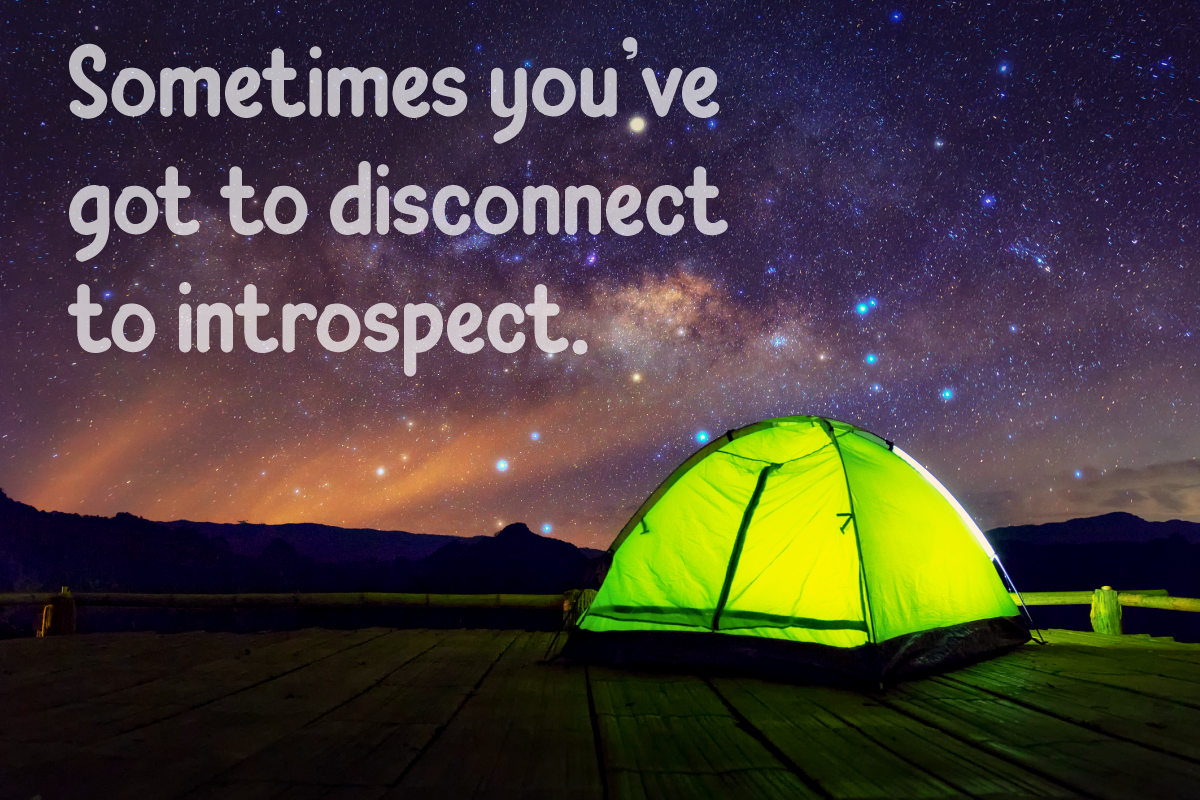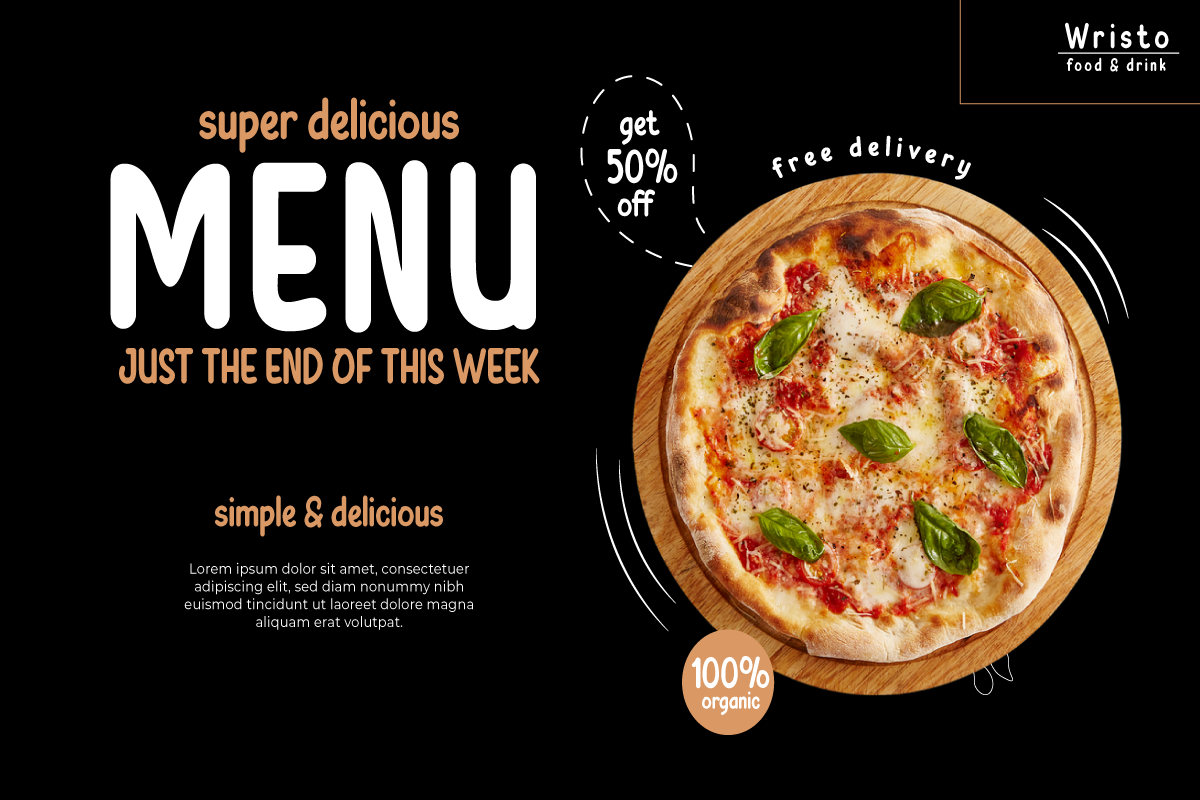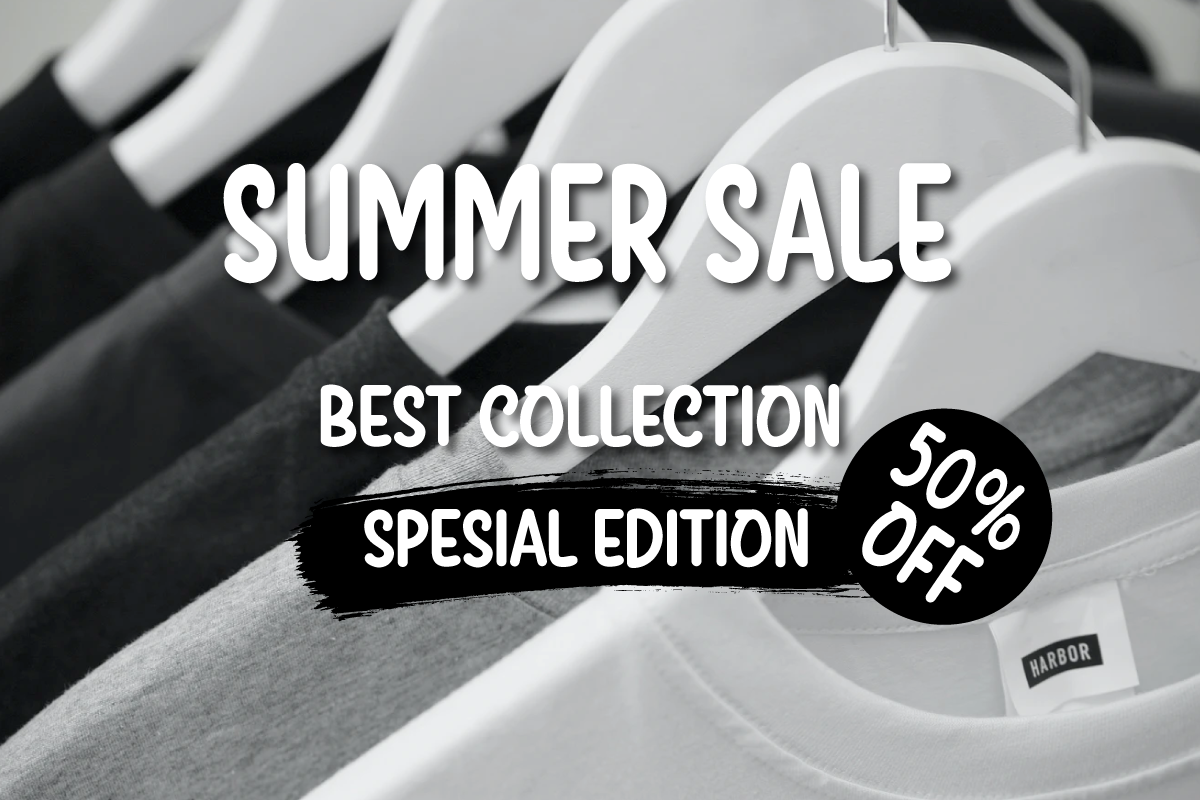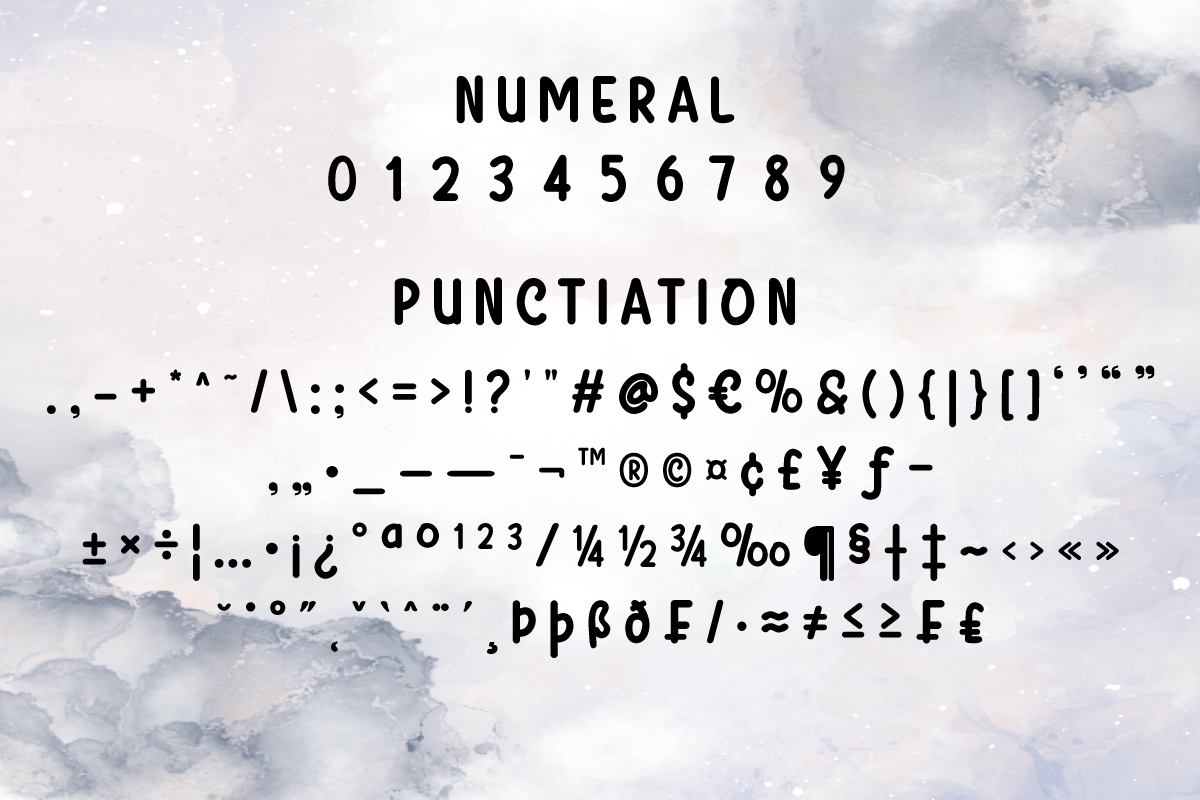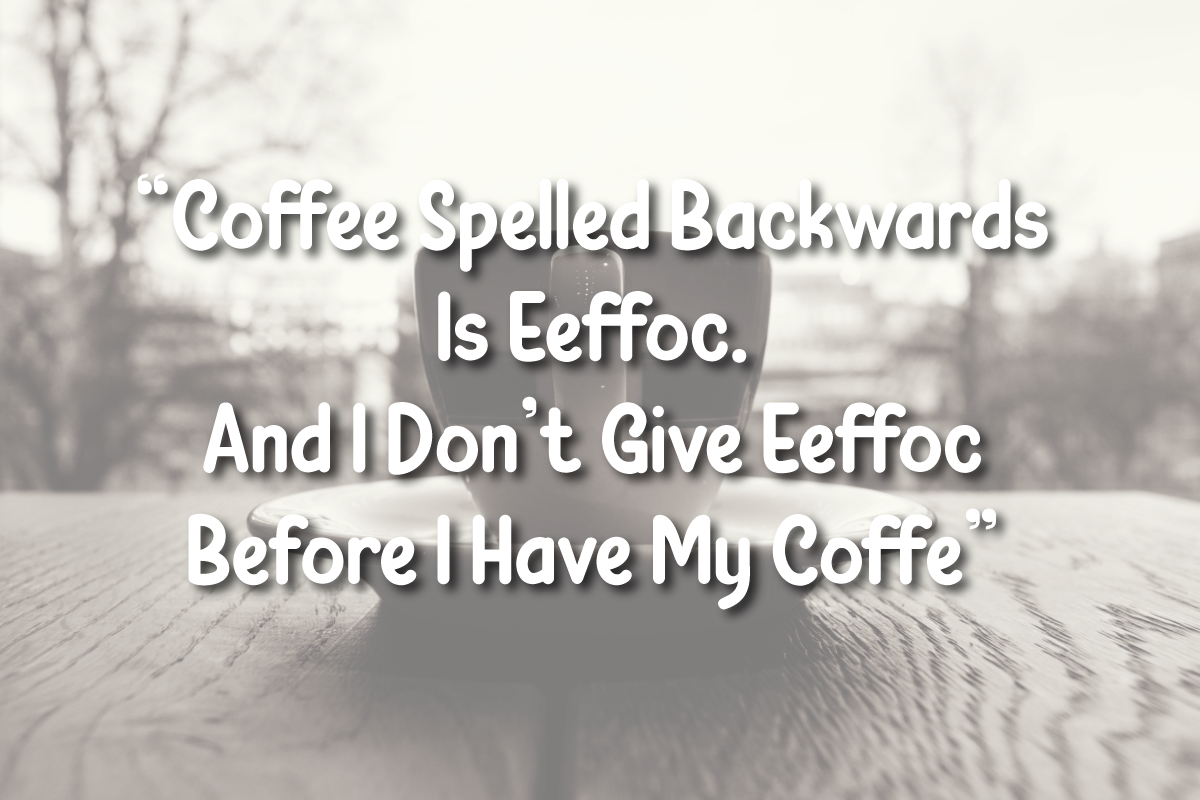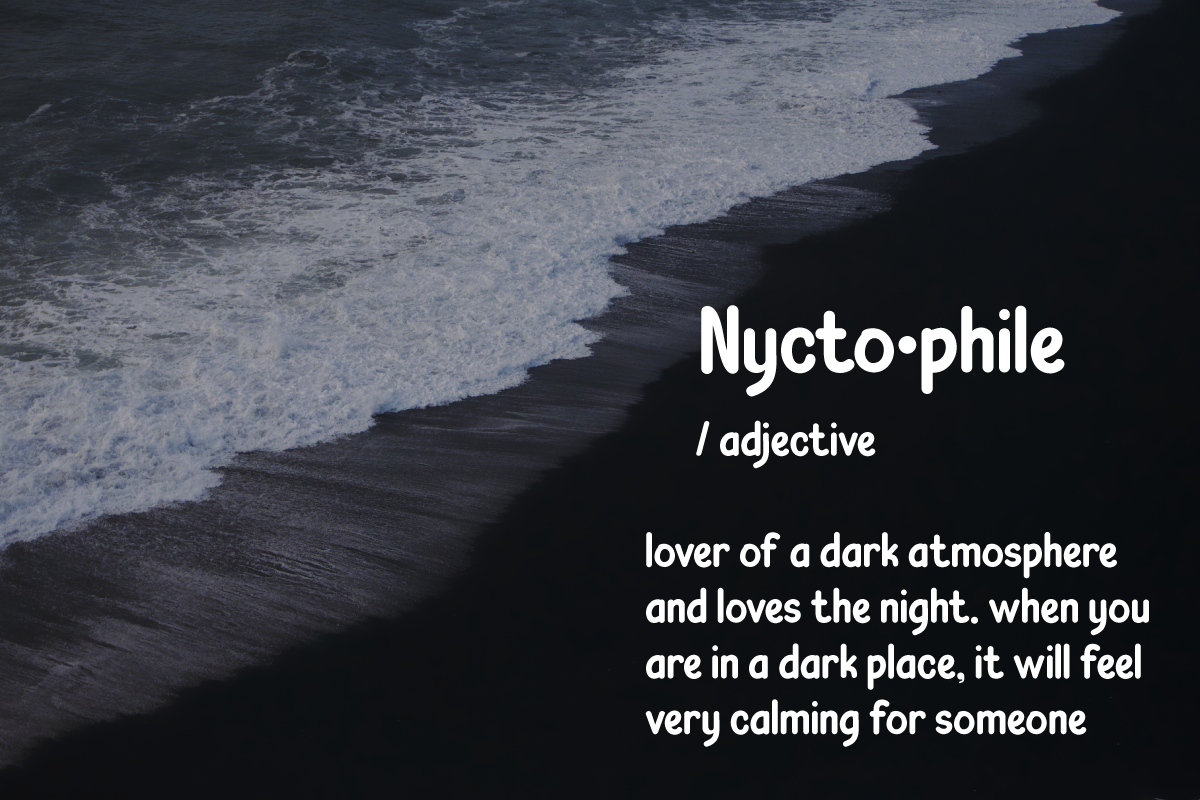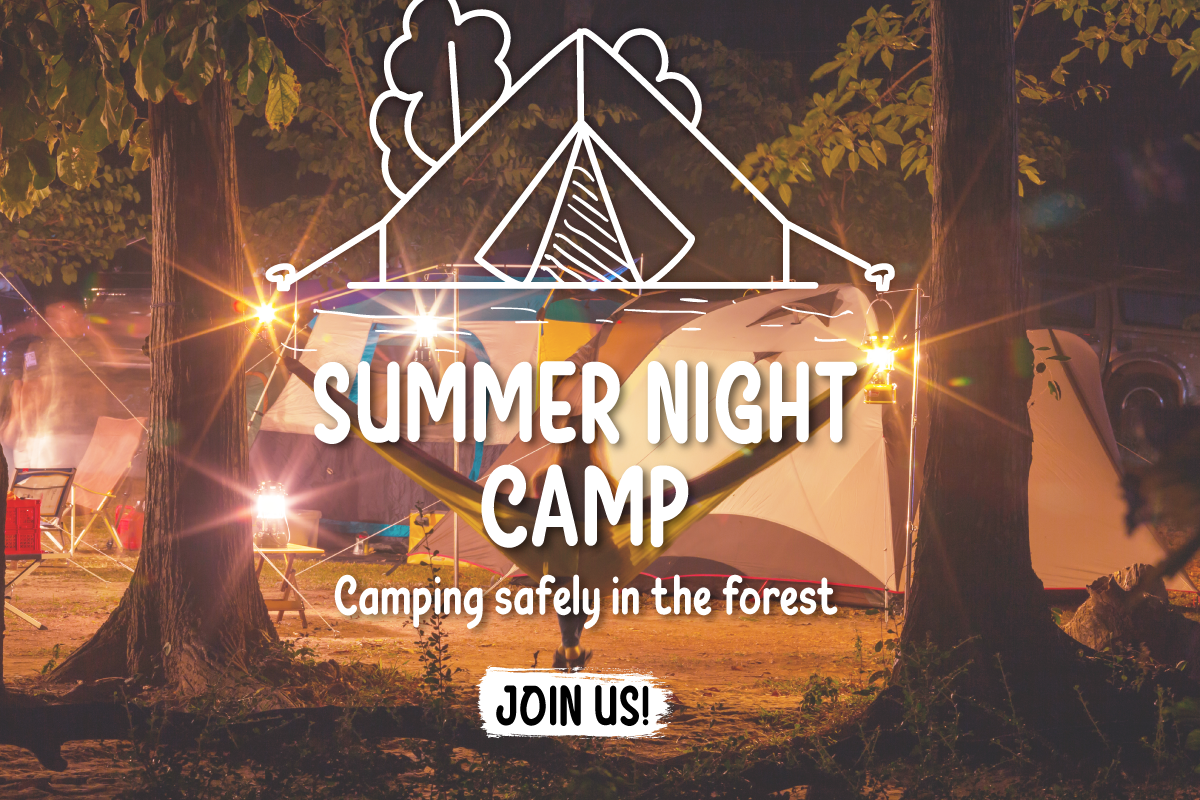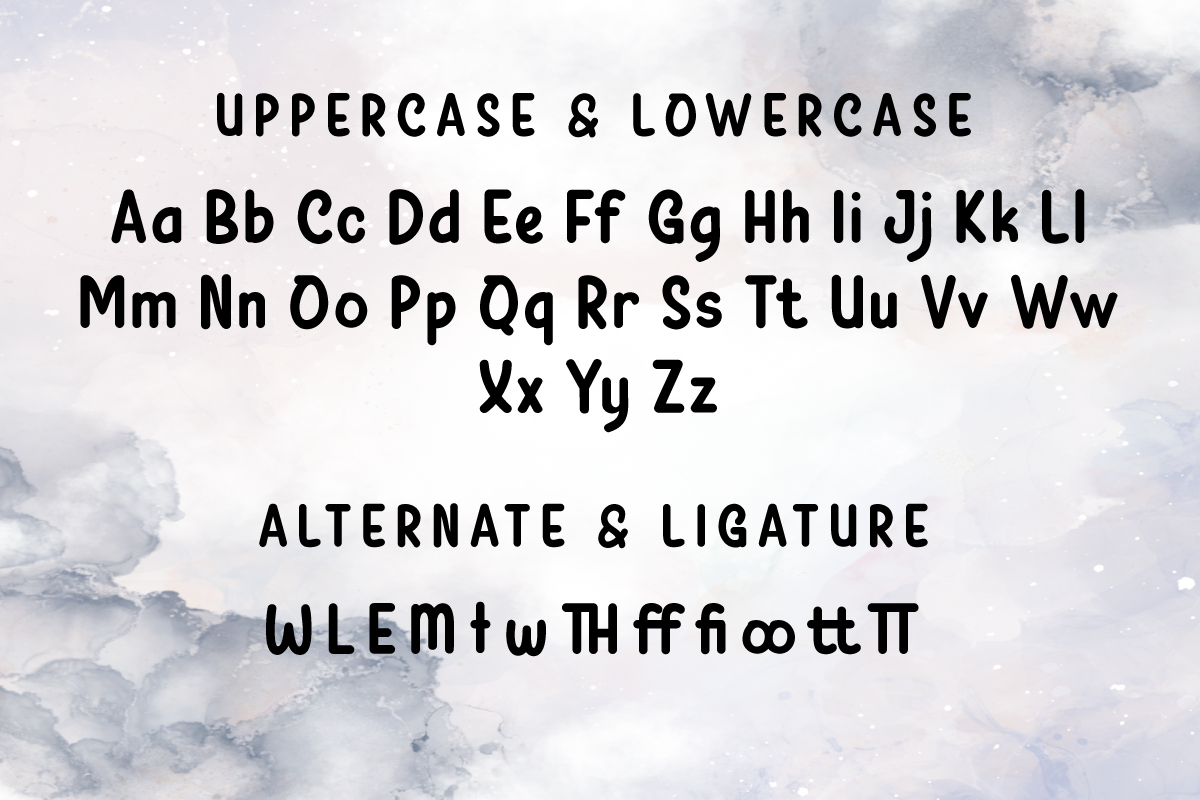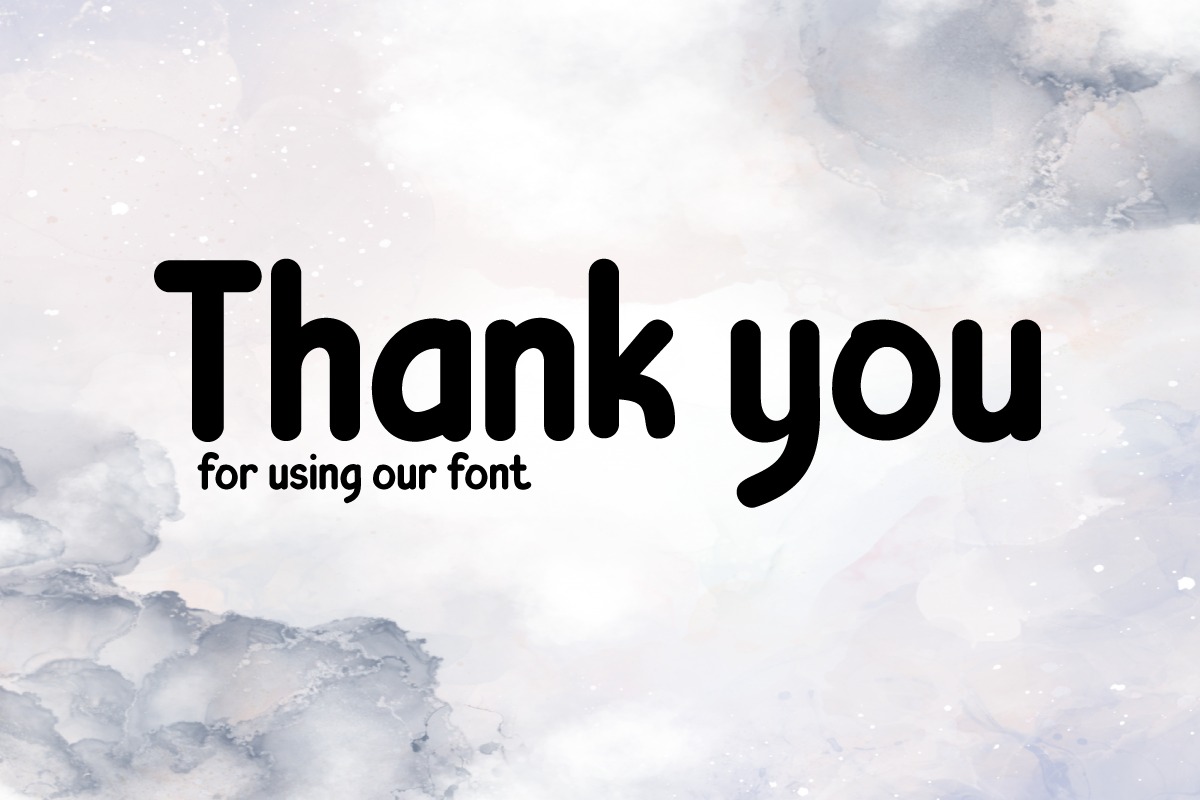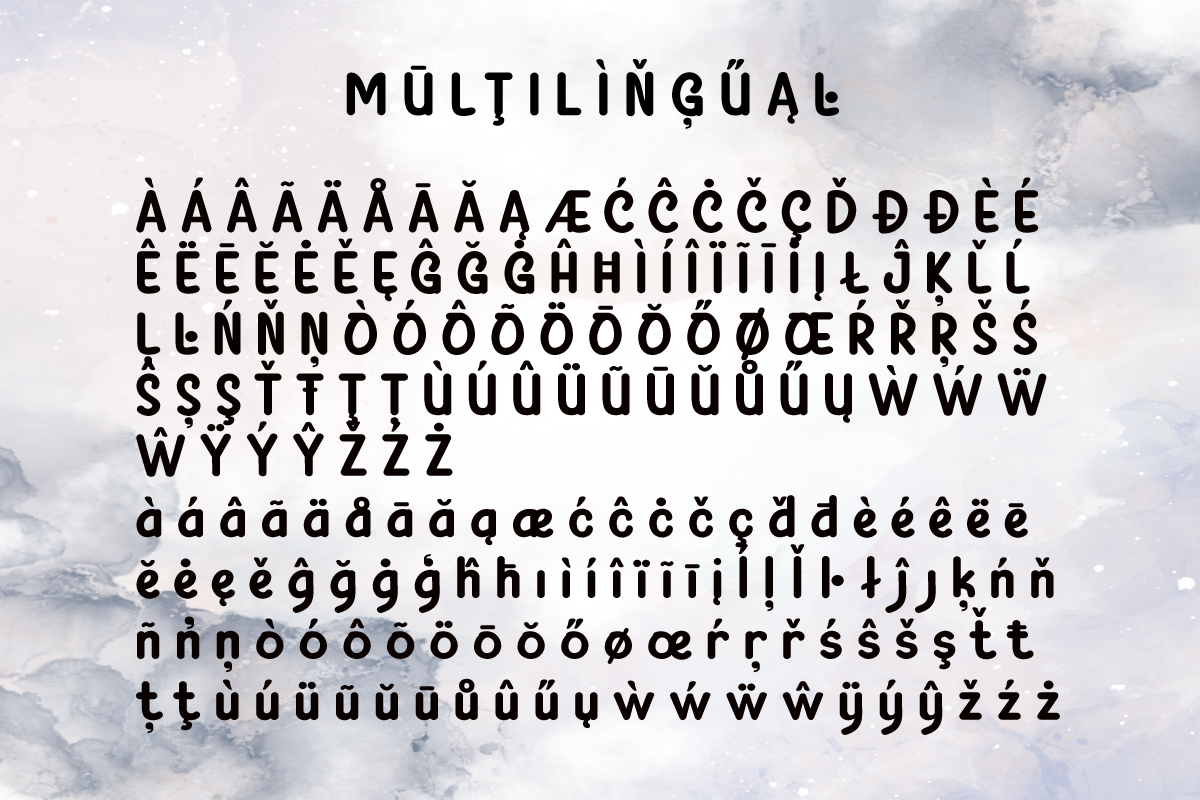
Xerym | Handwriting Display
Introducing Xerym Font – a captivating display typeface that embodies the essence of authentic handwriting! Elevate your projects with the artistic touch of Xerym, a perfect blend of style and individuality. Crafted with meticulous attention to detail, this typeface adds a unique charm to various design endeavors, from invitations to branding materials. With its fluid ligatures and alternate characters, Xerym offers creative freedom for crafting distinct compositions. This font transcends language barriers, ensuring seamless communication across cultures. Embrace the creative power of Xerym Font and redefine your designs with the elegance of handwritten artistry. Explore Xerym now and witness your creations come to life!
- Alternate, Ligature